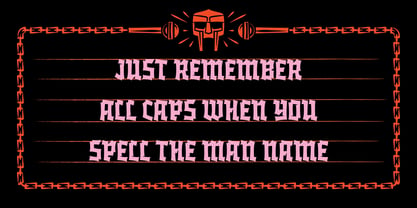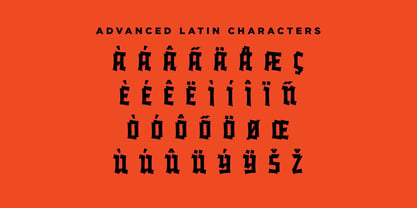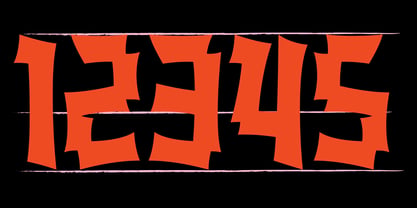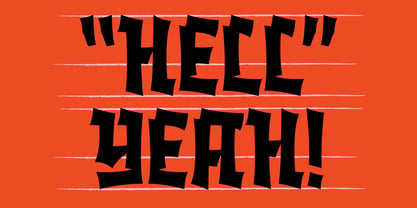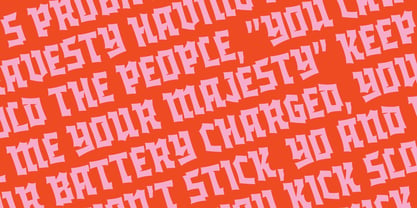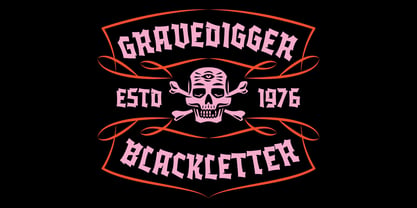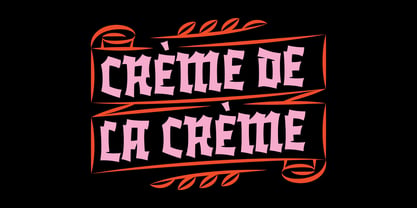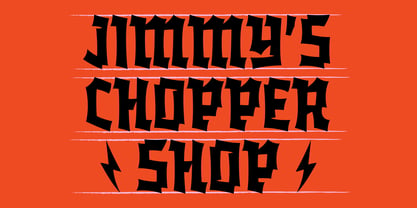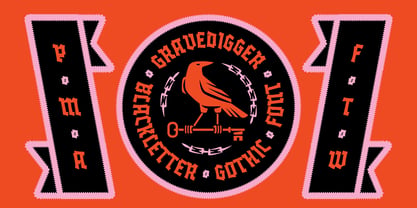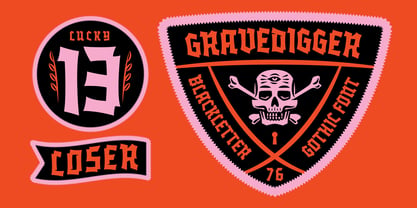
Gravedigger
by Price Foundry
The Gravedigger Font Family was designed by Travis Price and published by Price Foundry. Gravedigger contains 1 styles. More about this family
Most blackletter fonts look good… until you try to read them. Especially when you need to use them in uppercase to wrap around a badge or lock-up design. So I’ve made the uppercase Blackletter I’ve been searching for. Gravedigger is a bold uppercase blackletter font built for clarity without losing its edge. Designed with legibility in mind, it balances traditional gothic form with a modern, stripped-back structure, making it perfect for branding, apparel, and music merch.
Designers: Travis Price
Foundry: Price Foundry